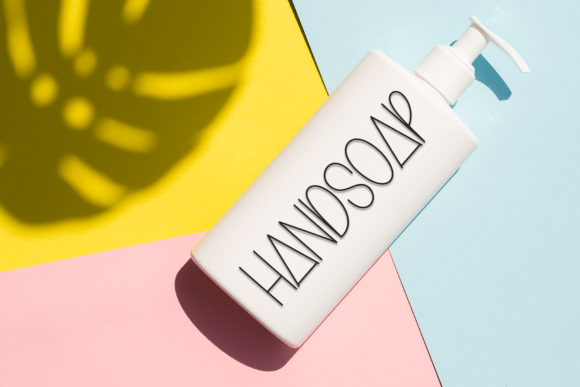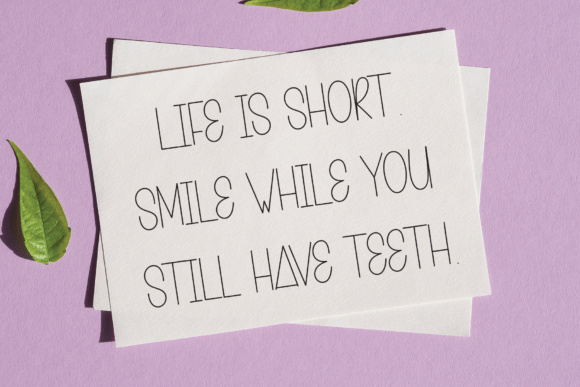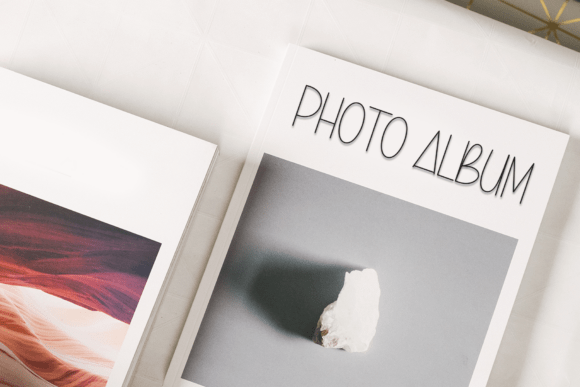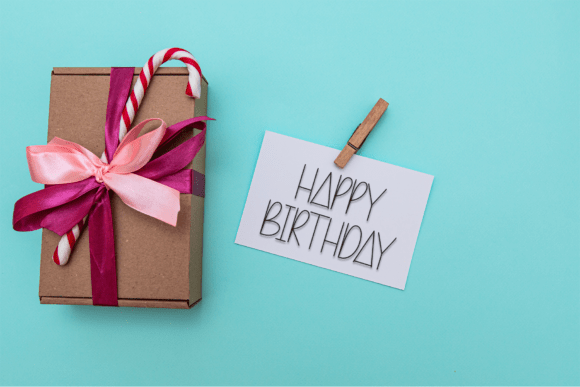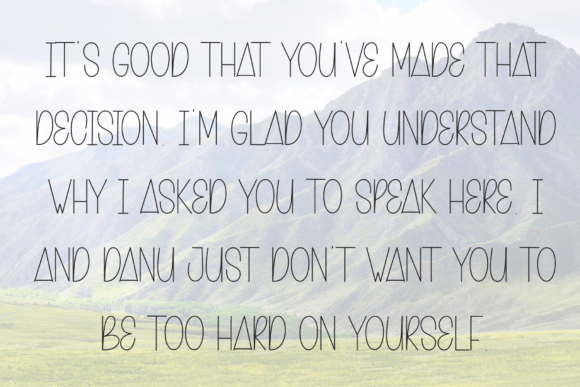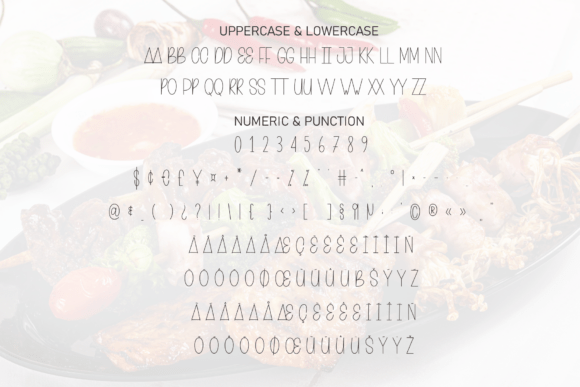
Discover the Charm of Barbecue Font: A Sweet and Playful Addition to Your Designs
Have you ever been working on a design project, pouring your heart and soul into it, only to get stuck on one thing: the font? I certainly have! It was a wedding invitation design project, and I was determined to find the perfect font that would convey the warmth and love of the occasion. That’s when I stumbled upon Barbecue Font, a charming and personable handwritten display font that embodies sweetness and friendliness.
As soon as I saw it, I knew I had found the one! Its delightful and playful characteristics make it the perfect selection for penning heartfelt wedding invitations, endearing cards, or any design project that yearns for a whimsical touch. In this article, I’ll share my experience with Barbecue Font, its features, and how to make the most of it in your designs.
An Honest Review of Barbecue Font
- ✨ Sweet and playful personality that adds a touch of whimsy to any design
- ✅ Highly legible, even at smaller sizes
- 💕 Perfect for designs that require a personal and friendly touch
- 🎉 Extensive character set, including glyphs and stylistic alternates
While Barbecue Font is an excellent choice for many design projects, there are a few things to keep in mind:
- ⚠️ May not be suitable for very formal or corporate designs, as it has a distinctly playful personality
- 🤔 Some users may find the font a bit too ornate or decorative for certain projects
The Backstory of Barbecue Font
Barbecue Font was designed with love and care by a talented font designer who’s passionate about creating beautiful and unique typefaces. The designer’s inspiration came from the classic handwritten fonts of the past, with a modern twist to make it fresh and exciting. The result is a font that’s both sweet and playful, perfect for designs that require a personal touch.
Q: What is Barbecue Font?
A: Barbecue Font is a charming and personable handwritten display font that embodies sweetness and friendliness.
Q: Can I use Barbecue Font for my wedding invitation design?
A: Absolutely! Barbecue Font is perfect for wedding invitation designs, as well as other designs that require a personal and friendly touch.
Q: Is Barbecue Font easy to read?
A: Yes, Barbecue Font is highly legible, even at smaller sizes, making it perfect for a variety of design projects.